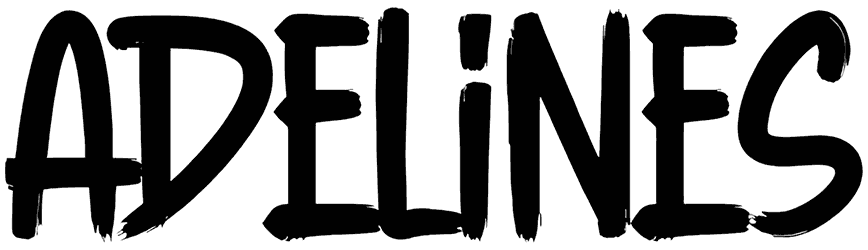
Adelines Font
Here we come again with a chunky script font, the same as the Adelines that come with rounded and crooked letters, thus it can add a sense of grunge, smudginess, dynamism, and jauntiness to all of your creative ideas.
Aside from not supporting lowercase letters and the lack of some numbers, it can be perfectly matched with a wide set of creative ideas, such as posters, logos, stickers, social media posts, and illustrations. Also, don’t forget to check our archive.